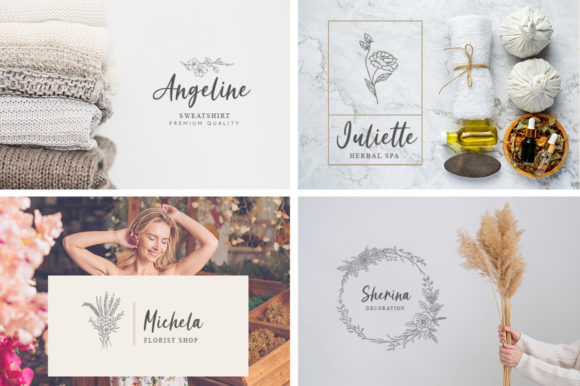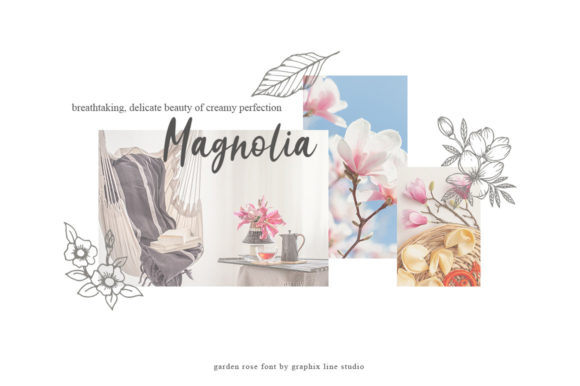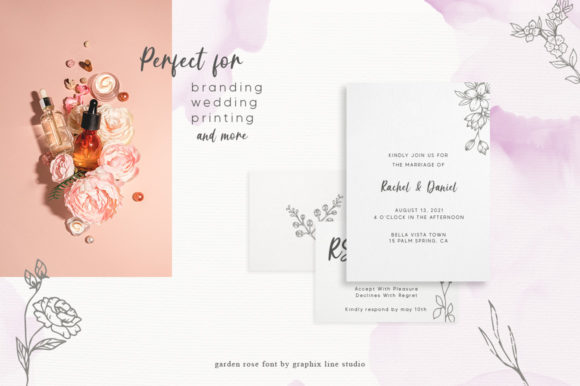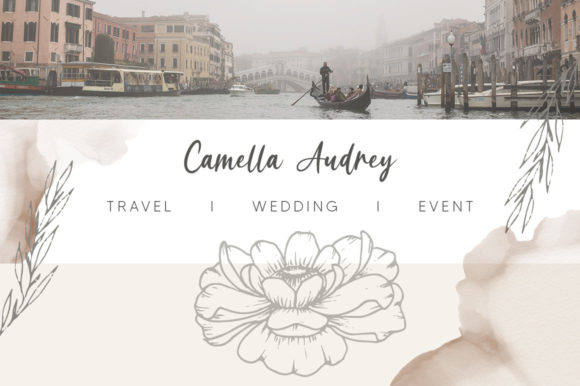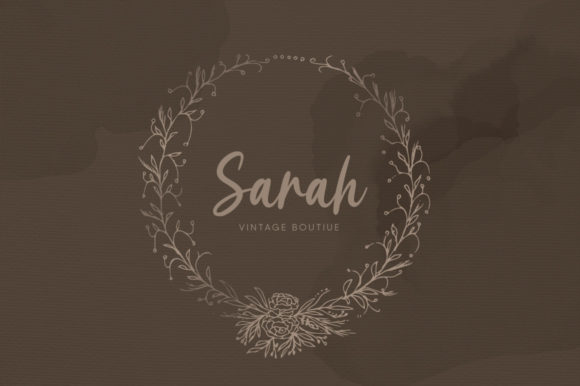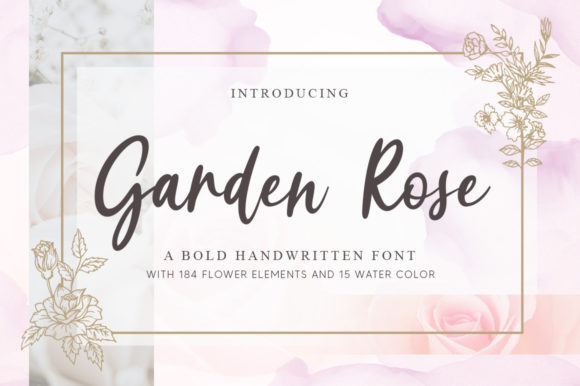
Garden Rose Font: A Refined and Dainty Handwritten Font for Romantic Designs
Are you looking for a font that can add a touch of elegance and romance to your designs? Look no further than the Garden Rose font. This refined and dainty handwritten font is perfect for creating beautiful wedding invitations, cards, branding materials, and more. In this article, we’ll take a closer look at the Garden Rose font and explore its features, benefits, and uses.
What is Garden Rose Font?
Garden Rose is a beautiful, cursive handwritten font that exudes joy and sophistication. Its delicate and refined strokes make it an ideal choice for designs that require a personal and romantic touch. The font is carefully crafted to create a sense of elegance and whimsy, making it perfect for a variety of design projects.
Key Features of Garden Rose Font
So, what makes Garden Rose font so special? Here are some of its key features:
- Refined and dainty strokes: The font features delicate and refined strokes that give it a touch of elegance and sophistication.
- Cursive and joyful: The cursive style of the font adds a playful and joyful touch to any design.
- Handwritten feel: The font has a beautiful, handwritten feel that makes it perfect for creating personalized designs.
- Romantic and whimsical: The font’s elegant and whimsical style makes it ideal for creating romantic and dreamy designs.
Uses of Garden Rose Font
So, what can you use the Garden Rose font for? The possibilities are endless! Here are some ideas to get you started:
- Wedding invitations: The font’s romantic and elegant style makes it perfect for creating beautiful wedding invitations.
- Cards and stationery: The font is ideal for creating personalized cards, stationery, and other paper crafts.
- Branding and packaging: The font’s unique and elegant style makes it perfect for creating beautiful branding materials and packaging designs.
- Printing and signage: The font can be used for creating beautiful prints, signs, and other visual displays.
Benefits of Using Garden Rose Font
So, why should you use the Garden Rose font for your designs? Here are some benefits:
- Adds a personal touch: The font’s handwritten feel adds a personal and unique touch to any design.
- Creates a romantic atmosphere: The font’s elegant and whimsical style creates a romantic and dreamy atmosphere.
- Versatile: The font can be used for a variety of design projects, from wedding invitations to branding materials.
- Easy to read: The font is clear and easy to read, making it perfect for body text and headlines.
Tips for Using Garden Rose Font
Here are some tips for using the Garden Rose font:
- Use it for headlines and titles: The font’s elegant style makes it perfect for headlines and titles.
- Pair it with other fonts: The font can be paired with other fonts to create a unique and interesting design.
- Experiment with colors and textures: The font looks beautiful with a variety of colors and textures.
- Use it for digital and print designs: The font can be used for both digital and print designs.
In conclusion, the Garden Rose font is a beautiful and elegant handwritten font that is perfect for creating romantic and personalized designs. Its refined and dainty strokes, cursive style, and joyful feel make it ideal for a variety of design projects. Whether you’re a designer, crafter, or DIY enthusiast, this font is sure to add a touch of elegance and whimsy to your designs.